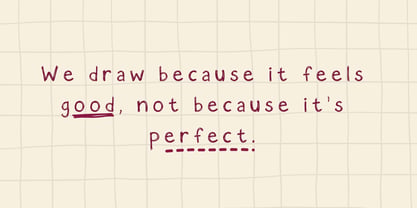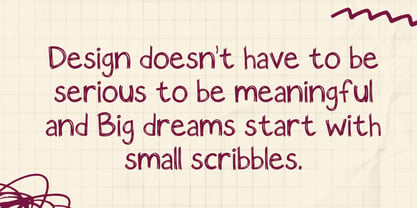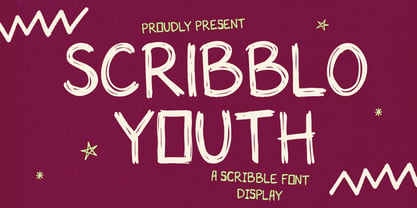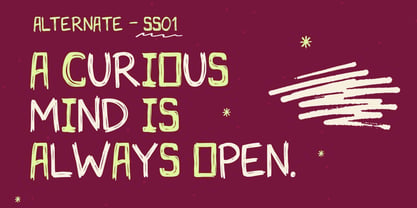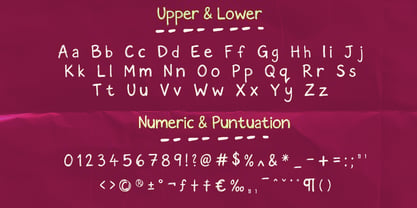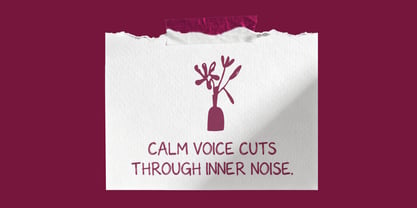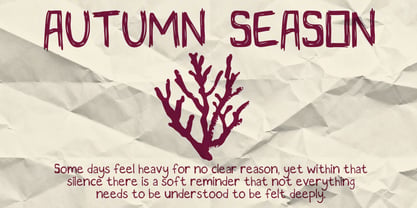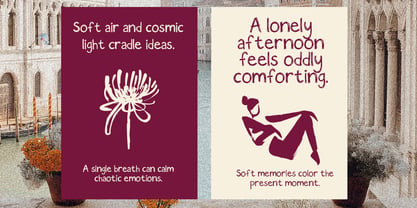
Scribblo Youth
von Stubborn Type
Die Schriftfamilie Scribblo Youth wurde von Arya Zebua entworfen und von Stubborn Type veröffentlicht. Scribblo Youth enthält 1 Stile. Mehr über diese Familie
Scribblo Youth is a handwritten display font inspired by spontaneous sketches, notebook doodles, and carefree creative moments. Its letterforms feel loose, imperfect, and intentionally uneven capturing the charm of natural handwriting without trying to look polished or formal. This font embraces simplicity and character. Each glyph carries a friendly, expressive tone that feels personal and approachable. Scribblo Youth is designed to bring warmth, humor, and lighthearted energy into your designs, making it ideal for creative projects that don’t take themselves too seriously.
Designer: Arya Zebua
Foundry: Stubborn Type